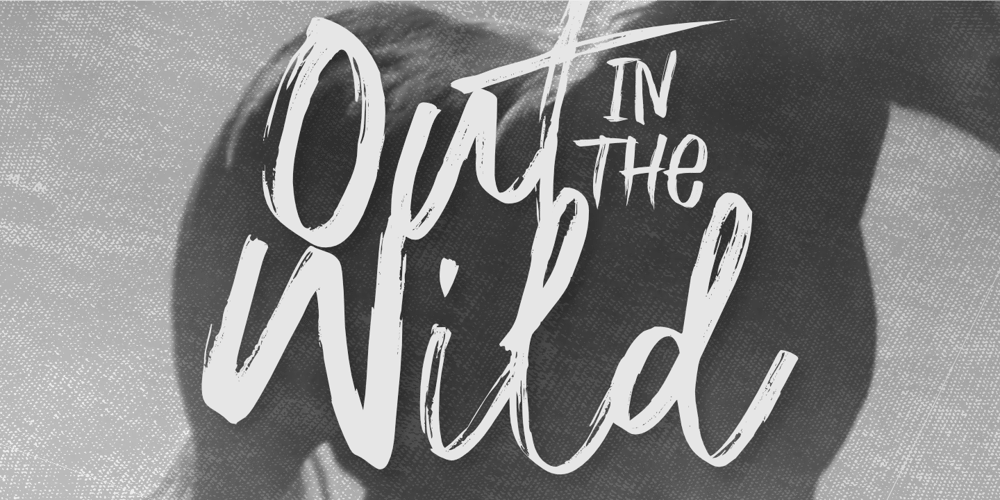
Out In The Wild Font Family was designed by Aldy Sidik and published by Epiclinez. Out In The Wild contains 1 styles and family package options. With Out In The Wild, you’ll enjoy the benefits of its raw and untamed aesthetic that captures the spirit of adventure in every character. Its rough edges and freestyle strokes give off an effortlessly cool vibe that’s hard to miss. Plus, the unique texture of this bush script font brings depth and personality to any design project it touches. You can trust Out In The Wild to infuse your posters with an organic charm that sets them apart from the usual polished designs.Out In The Wild features : Standard Latin Numbers, symbols, and punctuations Multilingual Support. Fully accessible without additional design software Simple Installations Works on PC & Mac Thank You.